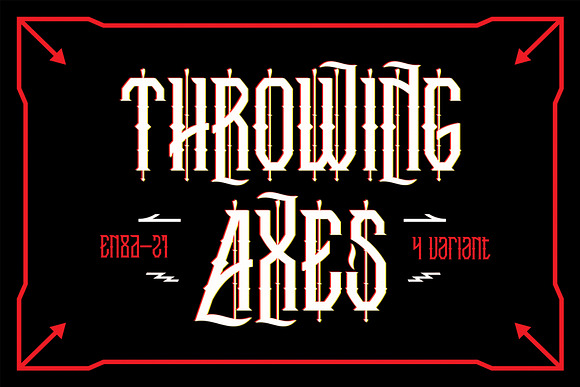
Trowing Axes Font
This rugged typeface is perfect for axe throwing venue branding, outdoor adventure company logos, lumberjack competition materials, rustic bar signage, wilderness survival gear packaging, camping equipment labels, extreme sports marketing, and authentic outdoor recreation campaigns. Trowing Axes Font delivers raw outdoor power in applications where wilderness authenticity and rugged craftsmanship are essential for connecting with adventurous audiences seeking genuine outdoor experiences and traditional skill-based activities.
What makes Trowing Axes Font so exciting is its masterful capture of lumberjack heritage and wilderness survival aesthetics through bold typography. The font features sturdy, weathered letterforms with sharp angular elements that suggest the precision and power of traditional axe work. Each character has been crafted to convey strength and outdoor expertise while maintaining excellent readability in challenging environments and rustic applications. The typeface's rugged personality creates immediate associations with frontier spirit and traditional craftsmanship, making it perfect for businesses that celebrate outdoor skills and authentic wilderness experiences through their visual identity.
The Trowing Axes Font includes powerful style variations: Regular, Bold, Distressed, and Stencil versions. This wilderness collection allows designers to create weathered effects and establish authentic typographic treatments that capture the essence of outdoor adventure and traditional skills. Each style maintains the font's inherent ruggedness while providing different weathering levels for various outdoor applications and wilderness design themes.
Whether you're developing outdoor recreation brand identities, creating adventure tourism materials, or designing wilderness skill marketing campaigns, Trowing Axes Font Free Download provides the authentic character that resonates with outdoor enthusiasts and adventure seekers. Its rugged appeal makes it particularly suitable for outdoor training centers, adventure parks, camping suppliers, and traditional craft workshops. The font's powerful presence ensures maximum impact in both outdoor signage applications and rustic marketing materials, while its versatile design adapts beautifully to weathered, natural, and traditional aesthetic approaches.
This authentic wilderness typeface represents the perfect solution for designers who understand the appeal of traditional outdoor skills in creating meaningful connections with adventure-minded audiences.